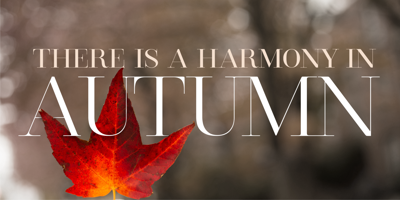
Chong Old Style Free Download
Chong Old Style Font Free Download
Chong Old Style Font is ideal for traditional design projects including vintage bookstores, classical literature publications, historical societies, traditional law firms, heritage museums, old-world restaurants, classical music venues, and timeless cultural campaigns. This distinguished typeface works perfectly for antique dealers, traditional printing houses, classical education institutions, heritage preservation organizations, and projects that celebrate traditional craftsmanship and classical design principles.
What makes Chong Old Style Font exciting is its authentic traditional character that perfectly captures the essence of classical typography and timeless elegance. The font features classic serif letterforms with historical proportions that reflect the enduring beauty and scholarly tradition of old-style typography. Its timeless design elements embody the spirit of classical learning and traditional craftsmanship, making it perfect for projects that need to convey authority, tradition, and connection to historical heritage. The carefully crafted classical details create an atmosphere of scholarly refinement and traditional sophistication.
Chong Old Style Font comes in multiple family variations including regular, italic, bold, and classical styles. Each weight maintains the distinctive traditional character while offering different levels of classical intensity and scholarly presence. The font family includes historical alternates, traditional ligatures, and old-style variations that provide designers with comprehensive options for creating truly authentic and classically inspired typographic compositions that honor traditional typography.
Whether you're designing traditional branding, creating classical marketing materials, or developing heritage promotional graphics, Chong Old Style Font Free Download provides the perfect typographic foundation for projects that celebrate classical excellence and traditional sophistication. This exceptional typeface transforms ordinary text into compelling expressions of timeless wisdom and classical authority. Download this distinguished font today and honor your design projects with the traditional elegance and classical refinement that captures the eternal beauty of old-style typography and scholarly tradition.